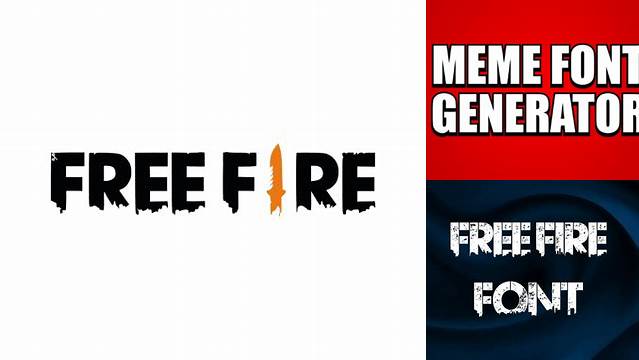
What is the Free Fire Font Meme?
The Free Fire font meme is a popular trend where people use a specific font that resembles or is directly taken from the Free Fire game to create memes. This font often features a bold, stylized design that captures the game's dynamic and energetic vibe. It's a fun way for players and fans to connect with the game's culture and share humorous content online.
The Origin of the Free Fire Font Meme
The trend began as a way for Free Fire enthusiasts to create content that resonated with the game's community. By using a recognizable font, memes became instantly identifiable, creating a sense of shared culture and humor. Over time, the meme evolved, with various interpretations and creative uses emerging across different social media platforms.
Why is the Free Fire Font Meme so Popular?
The popularity of the Free Fire font meme stems from its ability to tap into the game's existing fanbase. Memes are a powerful tool for online engagement, and by using a font closely associated with Free Fire, creators can quickly grab the attention of players and fans. This shared visual language makes the memes more relatable and enjoyable, driving their spread across social media.